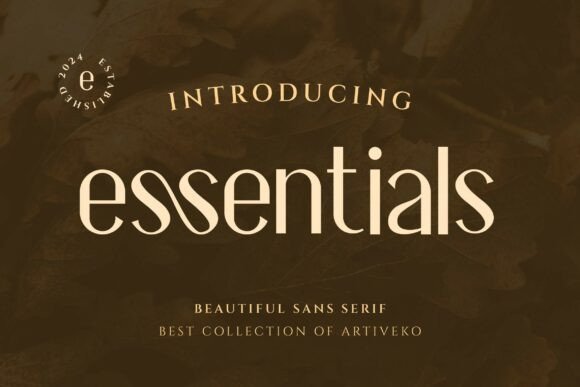
Unlocking the Power of Simplicity: Essentials Font
As designers, we’ve all been there – staring at a blank canvas, trying to bring a brand to life. But sometimes, the simplest approach is the most effective. I still remember the moment I fell in love with Essentials Font – it was like the perfect outfit that makes you feel confident and put-together. The smooth curves and balanced letterforms of this modern sans serif font exude quiet confidence, making it the perfect choice for beauty branding, fashion editorials, and lifestyle blogs.
Essentials Font is more than just a design choice – it’s a reflection of your brand’s personality and values. With its minimalistic aesthetic, it’s easy to see why it’s become a go-to choice for designers who want to convey simplicity and elegance. Whether you’re working on a product packaging project or creating social media content, Essentials Font is the perfect tool to help you communicate your brand’s message with clarity and sophistication.
Essentials Font Key Features
- Font Family: Essentials Font is a modern sans-serif font designed for clear readability and versatility.
- Font Size: Essentials Font is available in 7 font sizes, ranging from 10pt to 72pt, to cater to diverse design requirements.
- Unique Characteristics: Essentials Font features a clean and minimalist design, with subtle rounded edges and a humanist touch, making it ideal for modern branding and typography.
- Language Support: Essentials Font supports a wide range of languages, including Latin, Cyrillic, and Greek scripts, making it a versatile choice for global design projects.
Designer Review: Essentials Font
I recently had the chance to work with the Essentials Font, and overall, I’m impressed with its simplicity and functionality. Here are some key points that caught my attention:
- ✨ **Clean Design**: The Essentials Font boasts a clean and minimalistic design that makes it perfect for modern websites and applications. The sans-serif font is easy to read, even at smaller font sizes.
- ✨ **Legibility**: The font is highly legible, which is a must-have for any font. It’s suitable for both body text and headings.
However, there are a few limitations that I’d like to point out:
- ⚠️ **Limited Expressiveness**: The Essentials Font is a straightforward, no-frills font that may lack the expressiveness and personality of more decorative fonts.
- ⚠️ **Limited Font Weights**: The font only comes in a limited range of weights, which may not be suitable for projects that require more flexibility.
Overall, I think the Essentials Font is a solid choice for projects that require a clean and simple design. While it may not be the most exciting font, it gets the job done. I’d recommend it for projects where legibility and cross-browser compatibility are top priorities.
Essentials Font: A Practical Application Guide
In PowerPoint and Word, use the Essentials Font for headings and titles to create a professional and modern look. You can also use it for body text to maintain a consistent design language.
The Essentials Font is suitable for various design projects, including:
Alternatives to Essentials Font
Inter Font is a modern sans-serif font designed by Rasmus Andersson. It’s suitable for digital products and has a clean, minimalist aesthetic. Inter Font is highly legible and works well for body text and headings.
Inter Font is similar to Essentials Font in its clean and minimalistic design, but it has a more neutral and versatile feel. While Essentials Font has a slightly more rounded and friendly feel, Inter Font is more geometric and modern.